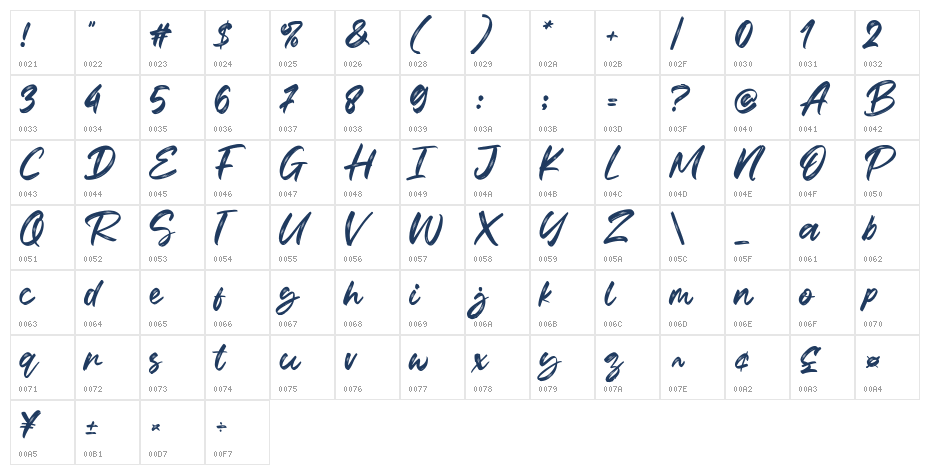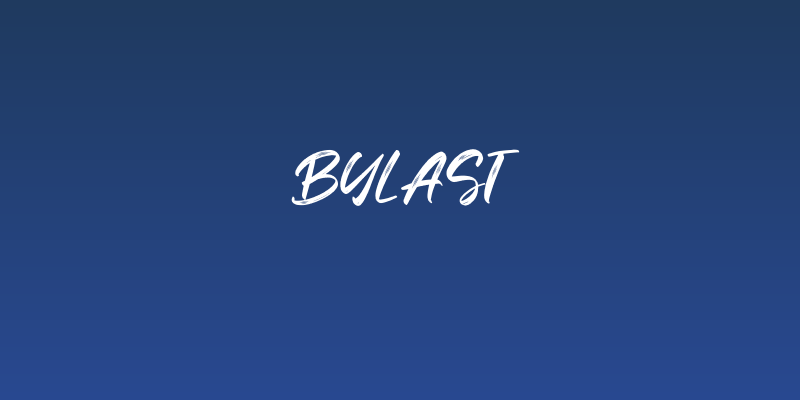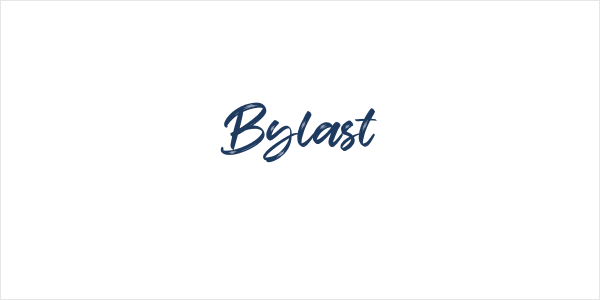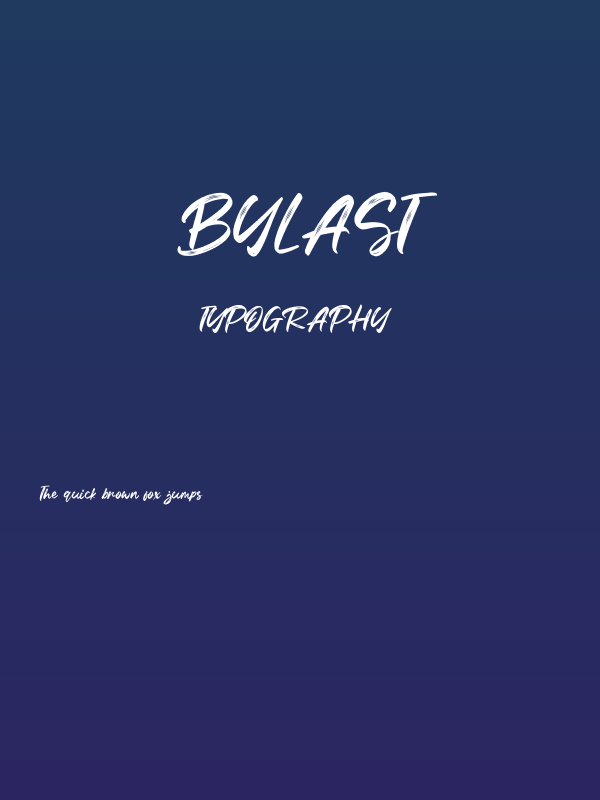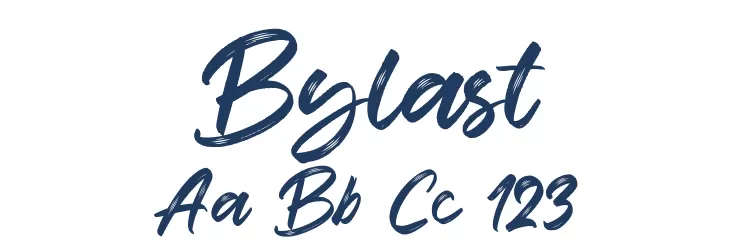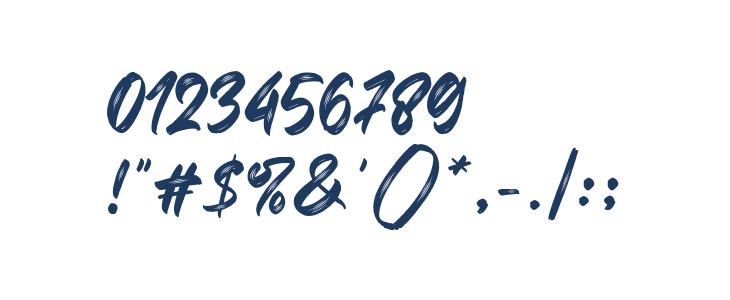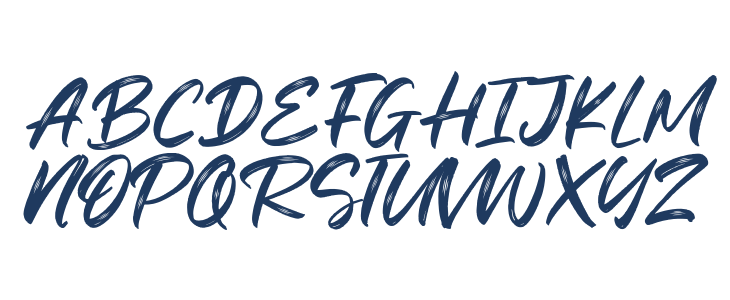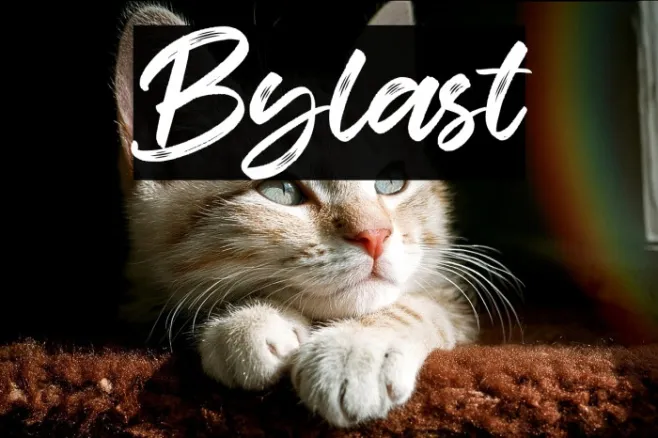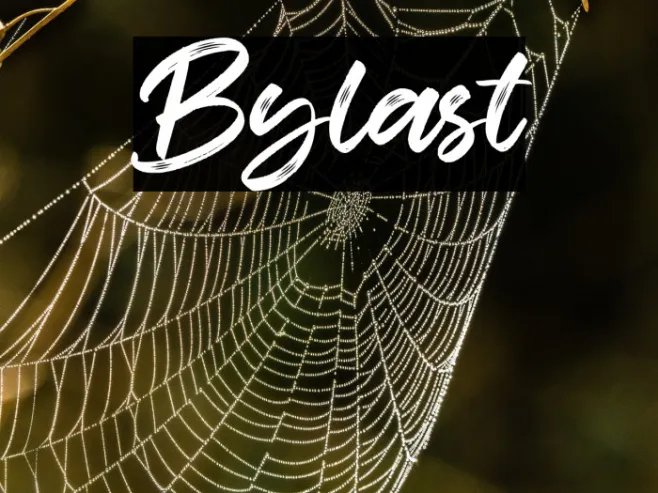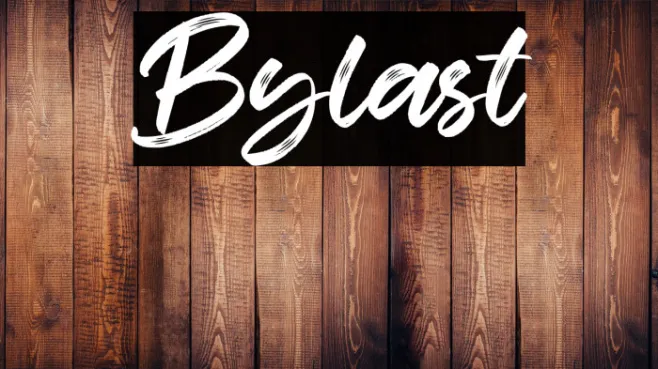
Bylast Font
Bylast Description
A casual, handwritten script font with a brush-like appearance, featuring smooth, flowing strokes and a slightly textured look.
| Overall Style | Casual, Handwritten, Brush |
| Use Case | Logos, Invitations, Social Media Graphics, Personal Projects |